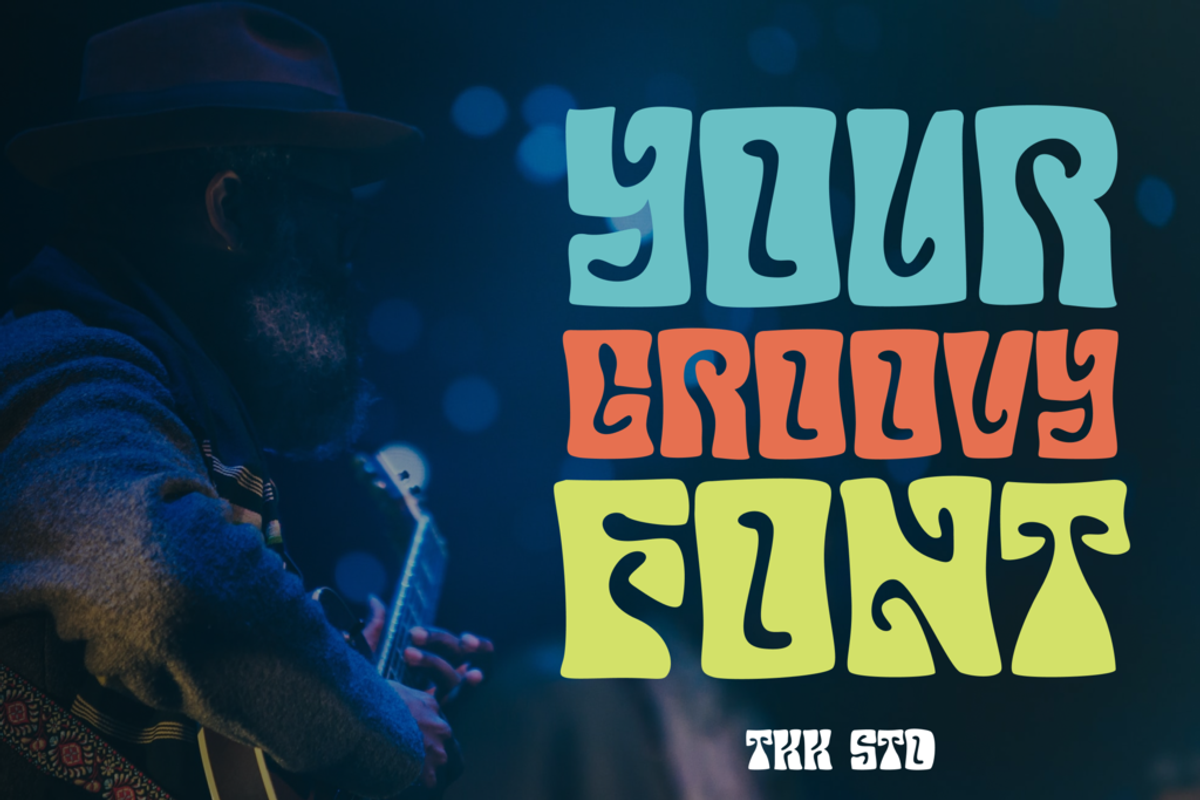
Your Groovy Font - Retro Fonts 70s Free Download
Please note, to use this font for commercial purposes, you must purchase the full version. Your Groovy Font is a vibrant, retro-inspired typeface that captures the essence of the 1970s with its bold, funky letterforms. Perfect for logos, branding, posters, and creative projects that need a nostalgic, groovy touch, this font adds energy and fun to any design. Whether you're working on a retro event, a music project, or a vintage-themed campaign, Your Groovy Font brings the spirit of the 70s to life in your work. Test it out and enjoy free download access for personal use. Experience the funky style of Your Groovy Font - Retro Fonts 70s Free Download before purchasing the commercial license. Add a groovy, retro vibe to your designs with Your Groovy Font.